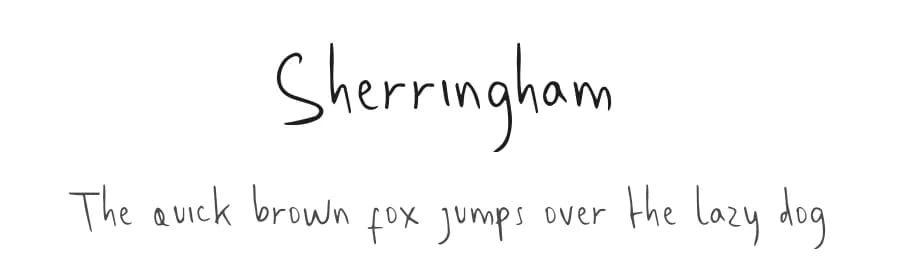
About Sherringham Font
Sherringham is a script & handwritten font designed by Ahgo Studio. It includes 83 glyphs, a regular weight, TTF (TrueType) format, and 89 languages. Sherringham is free to download; check the license details on this page before commercial use. Script & handwritten fonts like Sherringham work best for wedding invitations, greeting cards, signatures, and elegant branding.
Sherringham Font is a script font that shines as a display or heading face. Pair it with a clean sans-serif or serif font for body text β the contrast creates a clear hierarchy while the two styles stay balanced and easy to read.
Sherringham Font
by Ahgo Studio